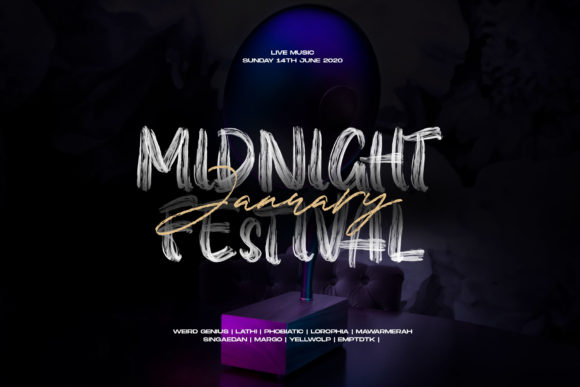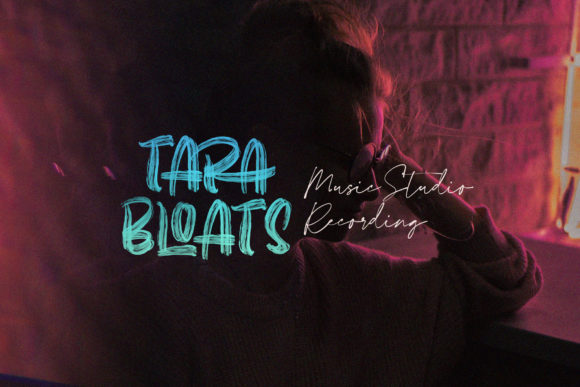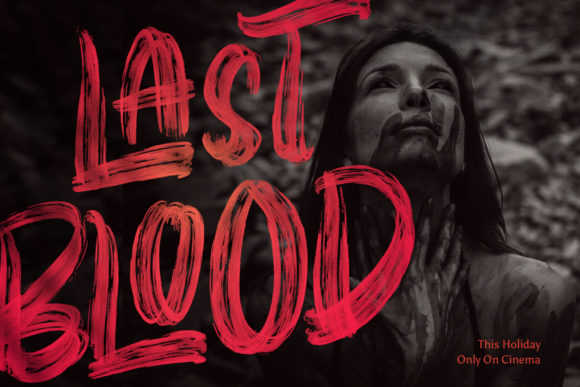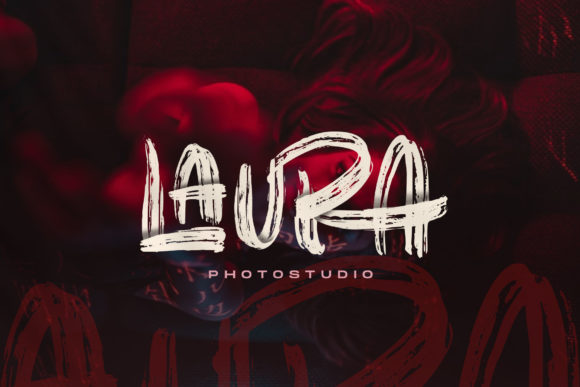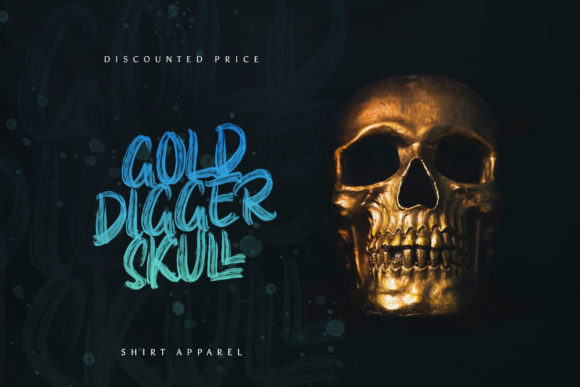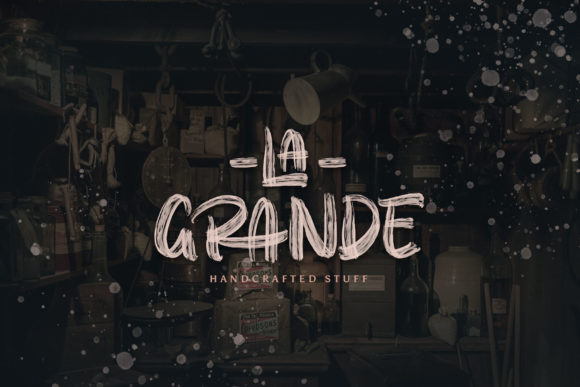
Introduction to Rollblast Font
Have you ever stared at a blank canvas, trying to find the perfect font to bring your creative project to life? The search is over. We’re excited to introduce you to the Rollblast Font, a stunning display font that’s sure to elevate your designs to new heights.
With its unique hand brush and textured feel, the Rollblast Font is a game-changer for designers. Whether you’re working on a branding project, creating wedding designs, or crafting invitations, this font is sure to make your work stand out. And the best part? It’s available in two styles: Rollblast SVG and Rollblast solid, giving you the flexibility to choose the perfect look for your project.
Key Features of Rollblast Font
- High-quality, bold font with a unique, distressed design, perfect for creative projects that require a touch of edginess.
Honest Review: Rollblast Font
I recently stumbled upon the Rollblast Font, and I must say it’s been a game-changer for my creative projects. As a designer, I’m always on the lookout for high-quality fonts that can elevate my designs and add a touch of personality.
Here’s what I like about the Rollblast Font: ✨ It’s incredibly versatile and can be used in a variety of design contexts, from logos to digital products. ✨ The font is highly customizable, allowing me to adjust the transparency of the background to suit my design needs. ✨ And, best of all, it’s completely free to download, making it an excellent resource for designers on a budget.
However, I do have a few reservations: ⚠️ The font can be a bit too bold for some designs, so it’s essential to use it sparingly and in combination with other fonts. ⚠️ Additionally, the font’s transparency feature can sometimes make it difficult to read, especially on dark backgrounds.
Overall, I’m thoroughly impressed with the Rollblast Font. It’s a fantastic design resource that has already saved me a significant amount of time and effort on several creative projects. If you’re looking for a high-quality font that can add a touch of excitement to your designs, I highly recommend giving the Rollblast Font a try.
Some common use cases for the Rollblast Font include:
- Branding and logos.
- Print materials, such as business cards and brochures.
- Digital projects, such as social media graphics and presentations.